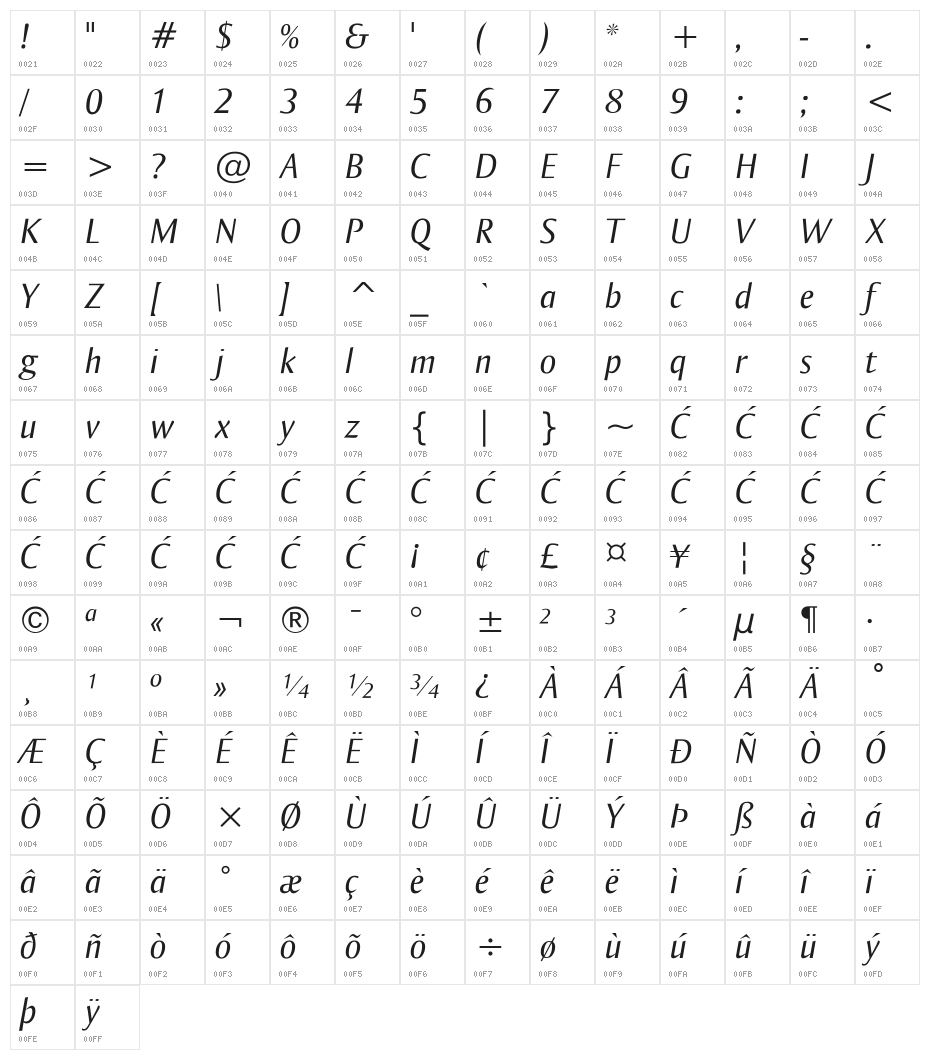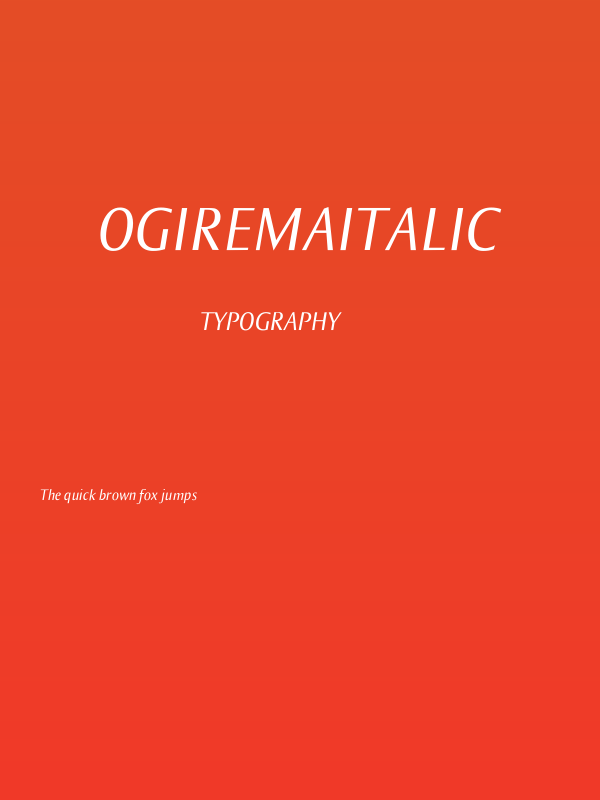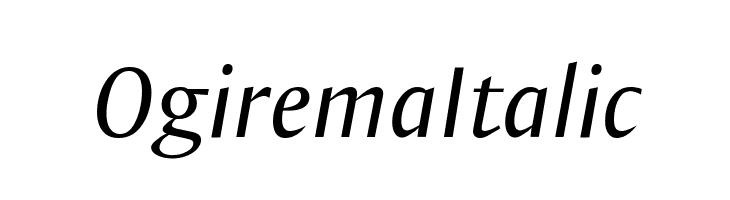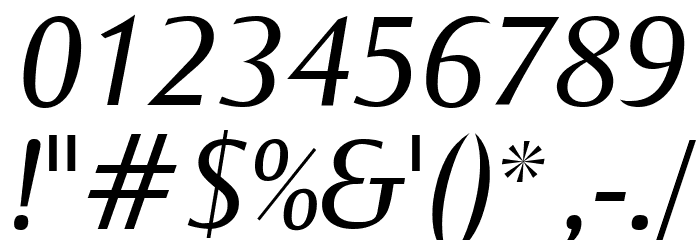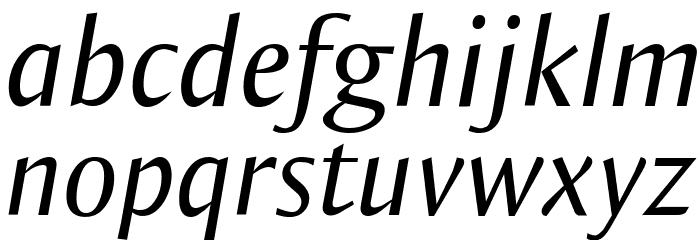
OgiremaItalic Font
OgiremaItalic Description
This font presents a sleek and elegant italic style, characterized by its smooth curves and slightly slanted orientation. The uppercase letters are tall and refined, while the lowercase letters maintain a consistent flow, enhancing readability. The numerals are well-proportioned, aligning seamlessly with the overall aesthetic. Special characters are crafted with precision, adding a touch of sophistication. The font's design is modern yet timeless, making it versatile for various applications. Its clean lines and subtle elegance make it suitable for both digital and print media, offering a professional appearance.
| Use Case | Headlines, Body text, Logos |
| Proposed Projects | Ideal for branding, editorial design, advertising, and digital content where a touch of elegance is desired. |